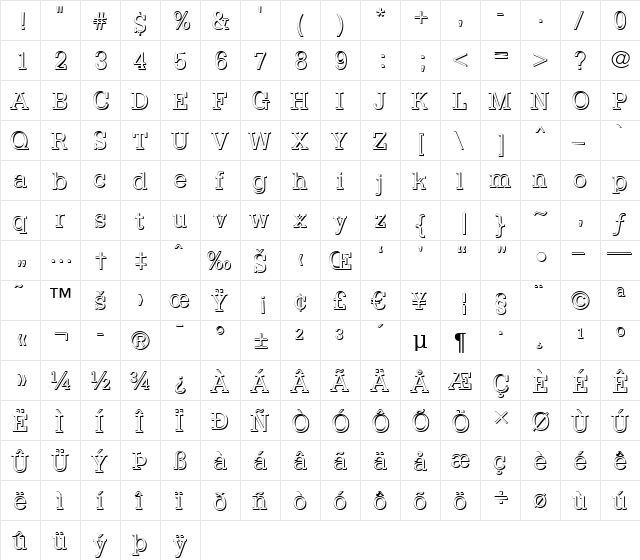
a_Noter3Dxtr Regular
Design Context for a_Noter3Dxtr Typeface
a_Noter3Dxtr takes a measured approach to typography — its balanced proportions and neutral character make it a reliable workhorse for both digital and print work.